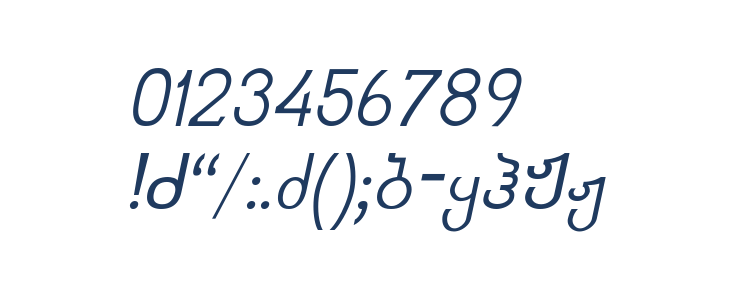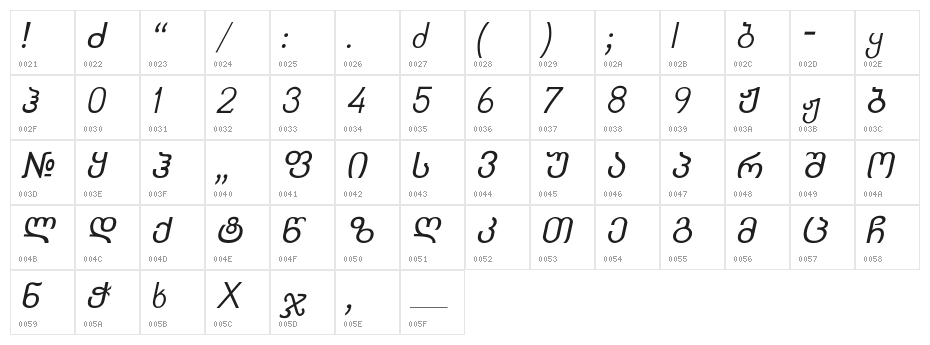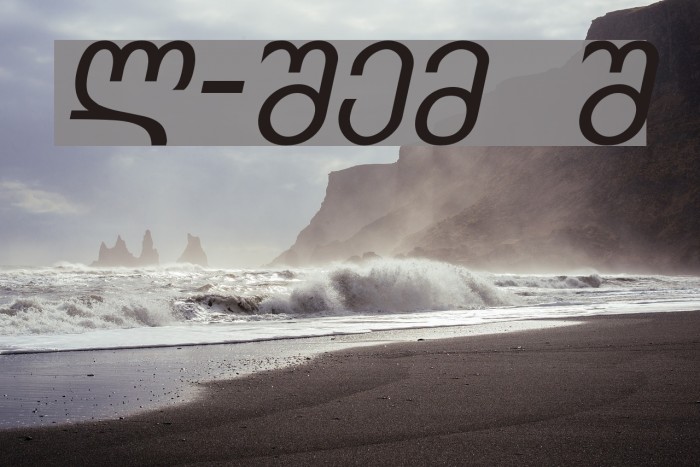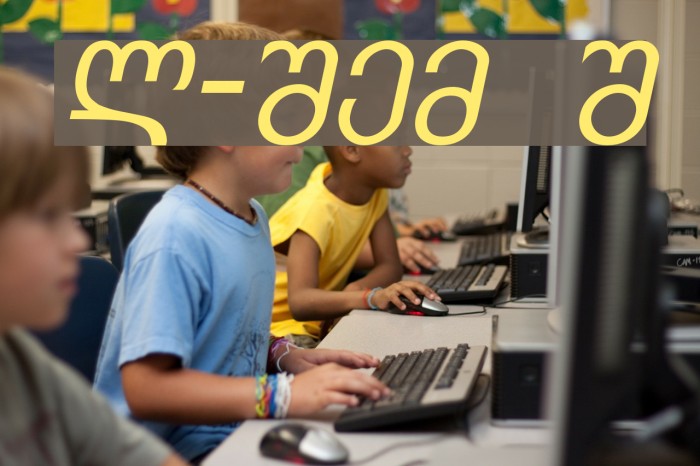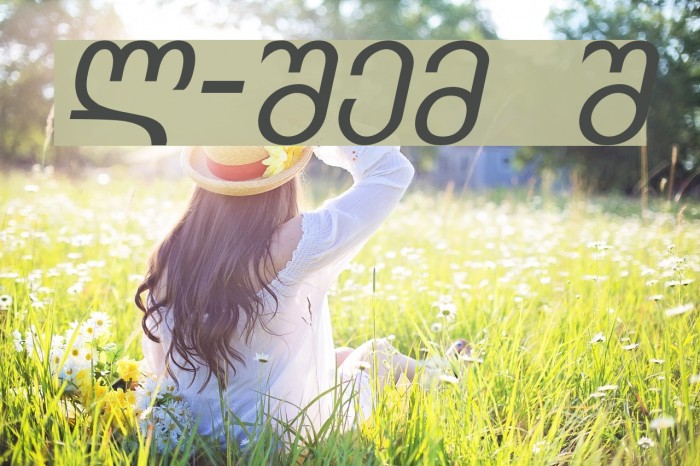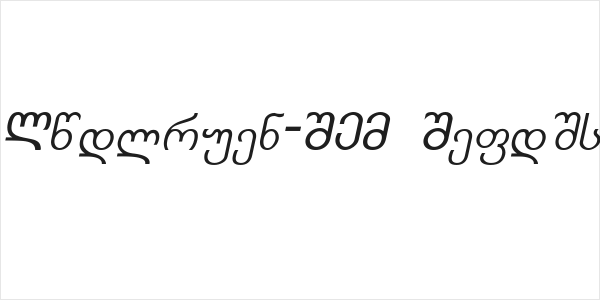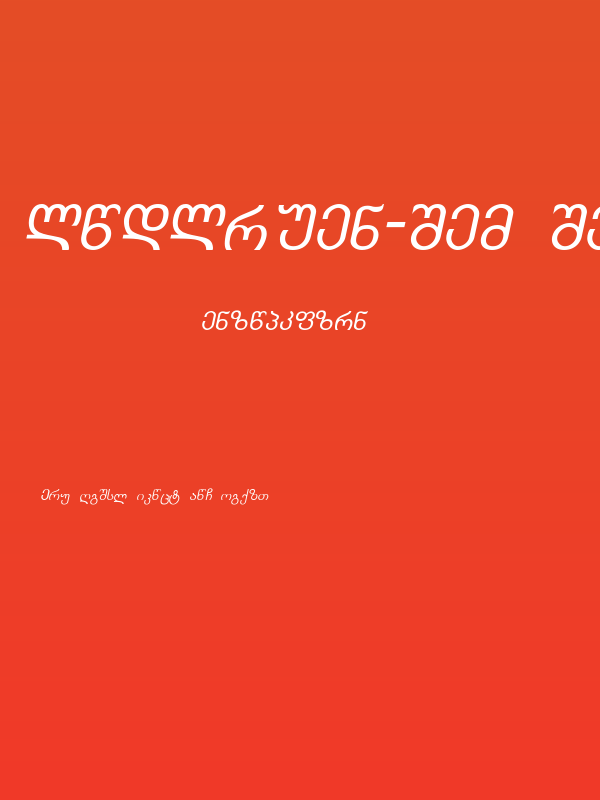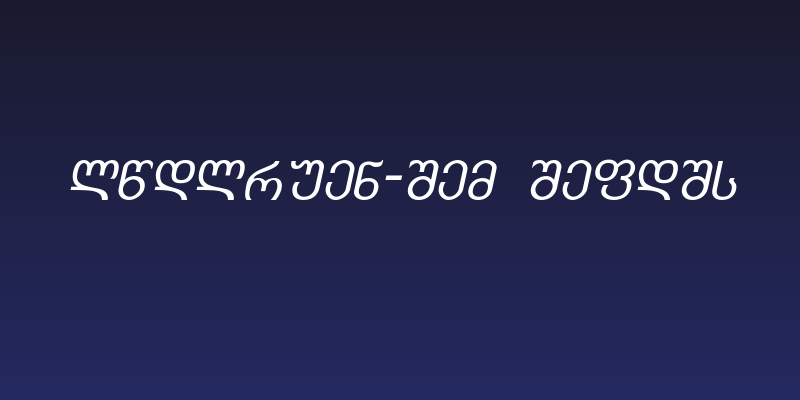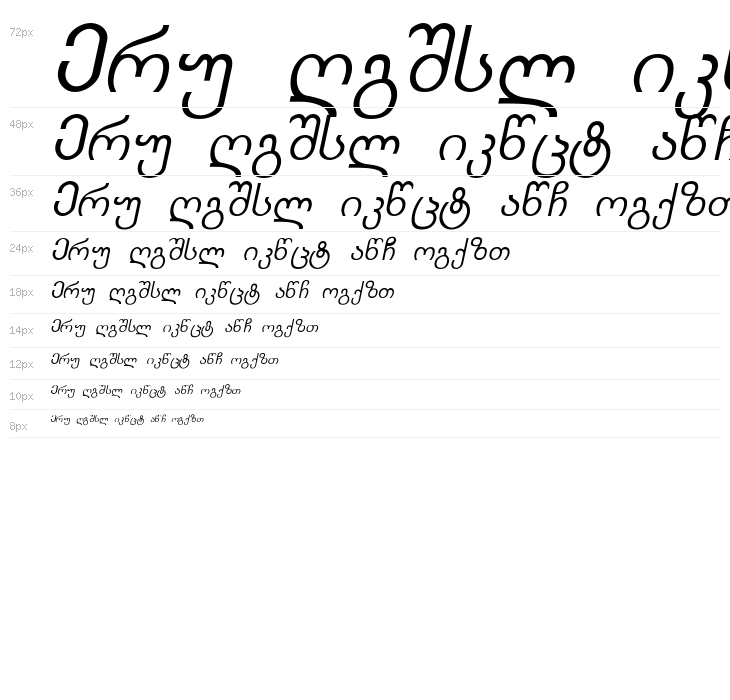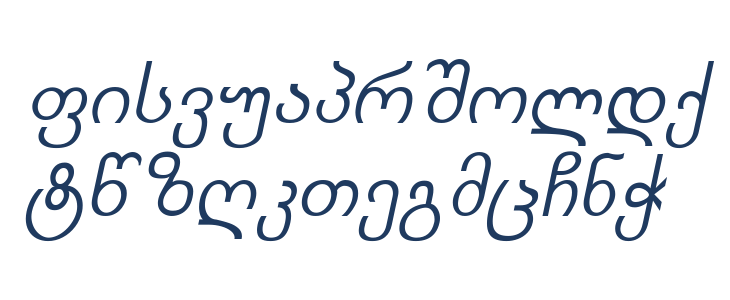
Kolkhety-ITV Italic Font
Kolkhety-ITV Italic Description
This font features a distinct italic style with smooth, flowing curves and a slightly slanted orientation, giving it a dynamic and elegant appearance. The characters are well-defined with moderate stroke contrast, providing a balance between readability and style. The numerals are consistent with the overall design, maintaining the same fluidity and elegance. Special characters are crafted with the same attention to detail, ensuring they integrate seamlessly with the rest of the font. The overall aesthetic is modern yet retains a touch of classic elegance, making it versatile for various applications.
| Use Case | Logos, Invitations, Editorial Design |
| Proposed Projects | Ideal for branding, invitations, editorial design, and elegant signage. |